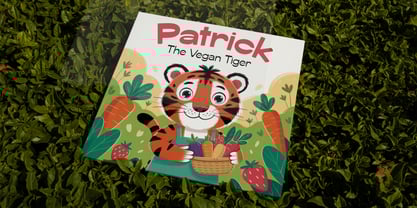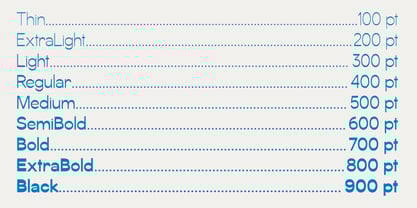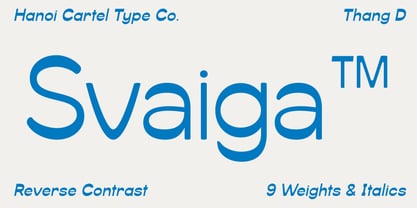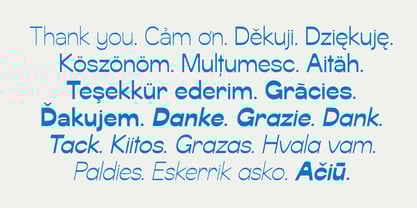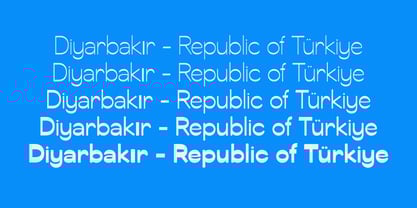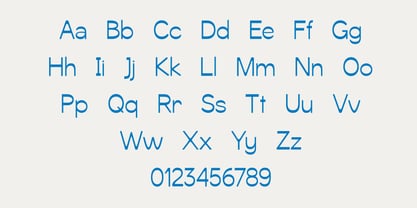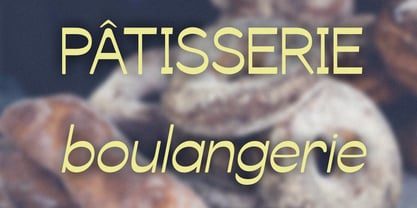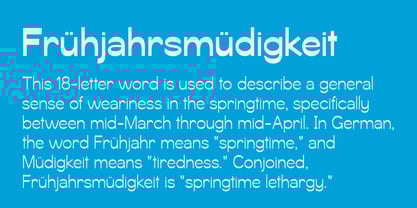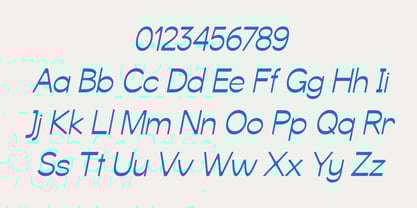
Svaiga
by Hanoi Cartel
The Svaiga Font Family was designed by and published by Hanoi Cartel. Svaiga contains 18 styles and family package options.
Svaiga is a typeface that flips traditional Latin sans serif conventions. By placing visual emphasis on horizontal strokes rather than vertical terminals, it exudes a distinctive 1970s charm but not with cost of illegibility.
Using this typeface signals that the user or brand fully embraces being different—even a little unconventional—while still remaining confident, effective, and purposeful.